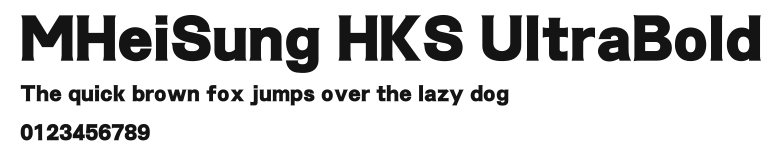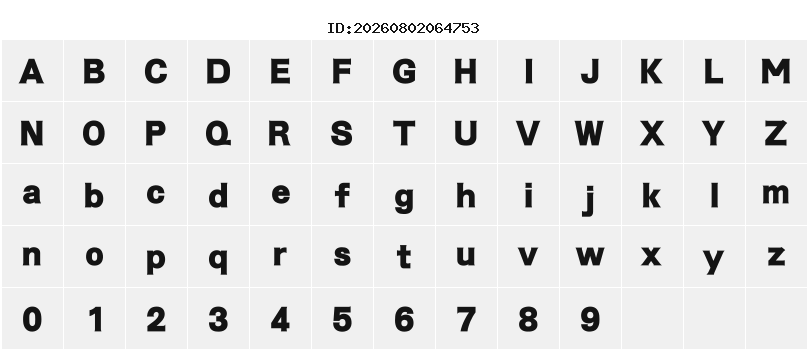
MHeiSung HKS UltraBold Preview
• Font Name: MHeiSung HKS UltraBold
• Font ID: MHeiSung HKS UltraBold
• Full Font Name: MHeiSung HKS UltraBold
About MHeiSung HKS UltraBold.ttf
MHeiSung HKS UltraBold.ttf is a modern, elegant sans-serif font designed for ultimate readability and visual harmony. Perfect for branding, headlines, web design, and print materials.